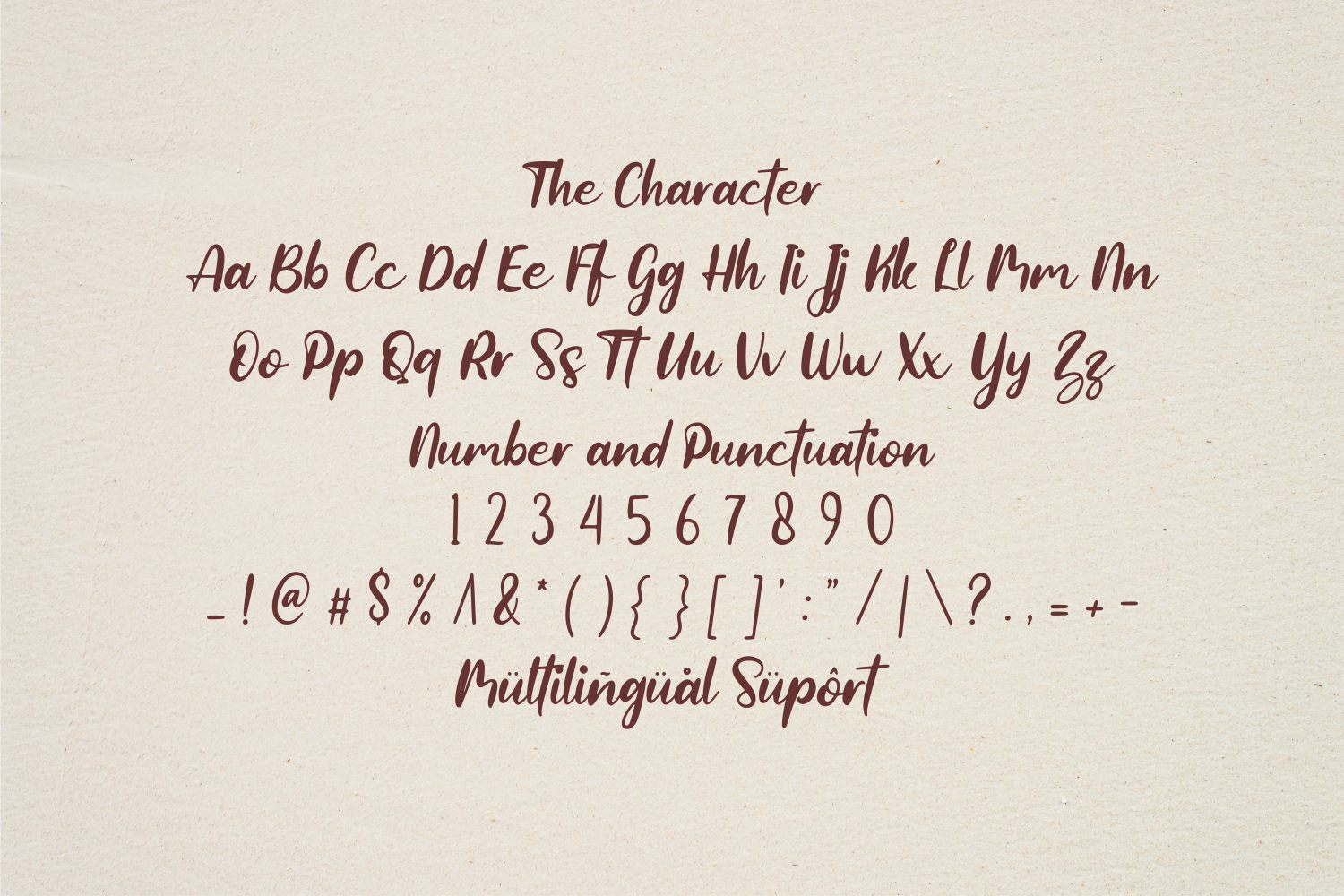
Raisley Font
Raisley Script Font is a fancy and elegant handwritten font created to impress your audience and make your branding shine. Make your projects dance with this elegant and wonderful font, wherever you use it.
Use it for your headings, logos, ads, printed quotes, packaging, and even your website or social media branding. Every letter has a unique and beautiful touch, which will make your designs come alive!